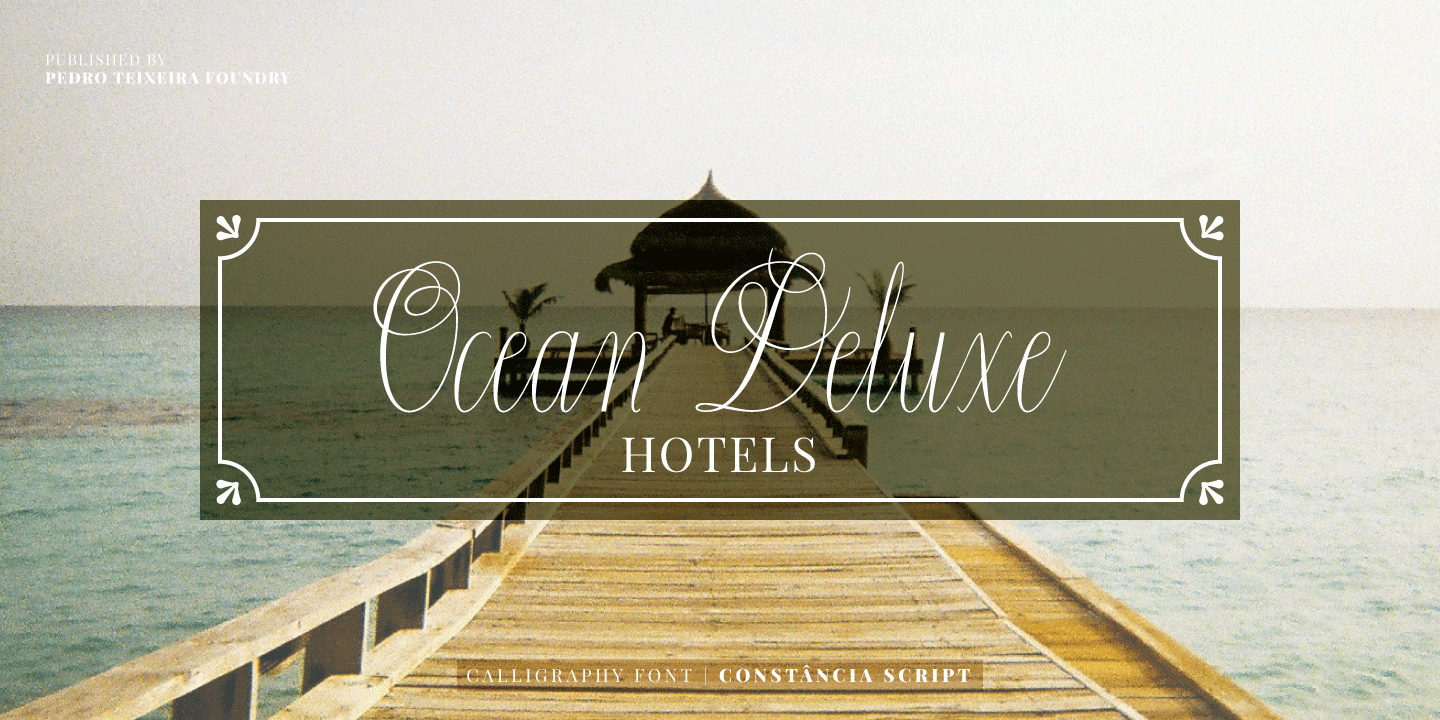
Constância Script Font is perfect for wedding invitations, greeting cards, luxury branding, restaurant menus, book covers, poster designs, social media graphics, logo creation, packaging design, and boutique store signage. This elegant script typeface adds sophistication to any design project.
What makes Constância Script Font exciting is its flowing calligraphic strokes that combine traditional elegance with modern readability. The font features beautiful swashes, graceful letterforms, and seamless connections between characters that create a luxurious handwritten appearance. Its versatility allows designers to create both intimate personal projects and high-end commercial designs with equal success.
The Constância Script Font family includes multiple weights and styles, offering regular, italic, and decorative variations. Each style maintains the signature flowing characteristics while providing different levels of formality and visual impact for various design needs.
Whether you're creating romantic wedding materials or sophisticated brand identity, Constância Script Font Free Download provides the perfect balance of elegance and functionality. The font's extensive character set supports multiple languages, making it ideal for international design projects. Its carefully crafted letterforms ensure excellent readability across both digital and print media, while the authentic script styling adds genuine personality to every application. Download this premium quality typeface today and elevate your design projects with its timeless charm and professional appearance.